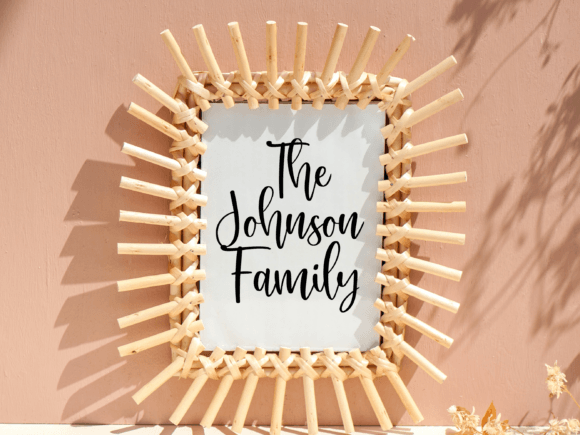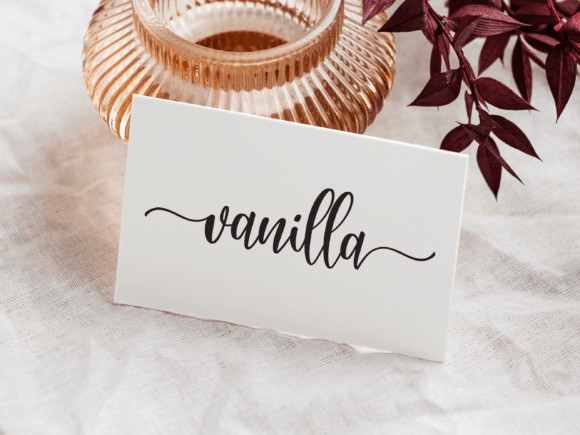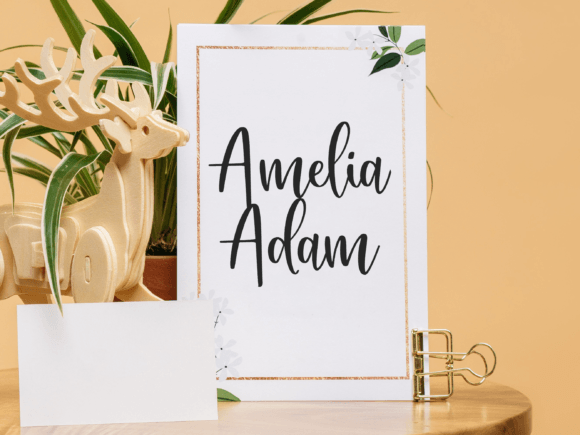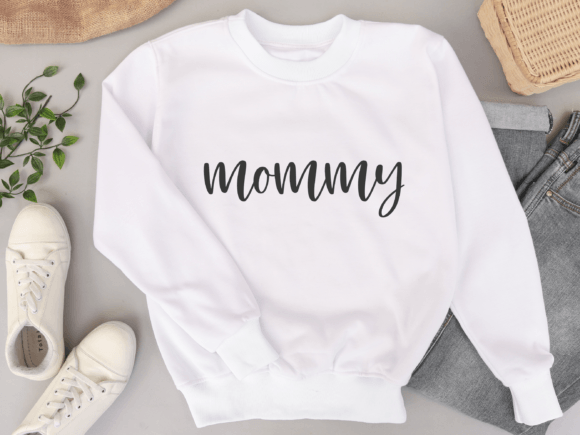
Farmhouse Font
Farmhouse is a stylish bouncy font with swashes. Perfect for your custom craft projects, because it gives personalized to your beautiful craft. This fancy font will give an elegant and sweet design at the same time.